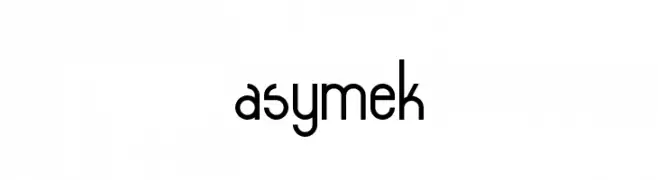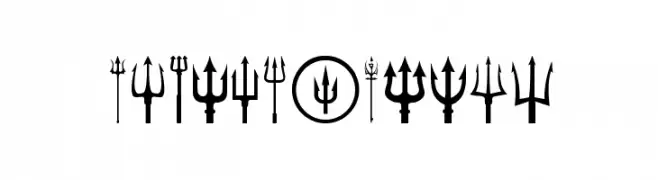
( Nick Polifroni - www.remedy667.com/ )
A modern, geometric font with clean lines and uniform structure.
( Sebastian - greekhouseoffonts.com )
A bold, double-outline font inspired by traditional Greek lettering, ideal for decorative and impactful designs.
( Woodcutter - woodcutter Manero - www.woodcutter.es )
A display font composed entirely of diverse trident symbols.
( hechicero - www.ff-omeganebula.com )
A decorative and intricate font with mystical, calligraphic elements.
( weknow - Wino S Kadir - www.creativefabrica.com/designer/weknow/ )
A bold, whimsical font with flowing, curvaceous lines and playful energy.
( weknow - Wino S Kadir - www.creativefabrica.com/designer/weknow/ )
A bold, italic script font with elegant curves and a flowing style.
( weknow - Wino S Kadir - www.creativefabrica.com/designer/weknow/ )
An elegant, italicized font with a flowing, cursive-like style.
( Digital Magic - www.graphicdesignplus.com/helen/digitalmagic/ )
The image contains decorative symbols, not a valid font.
( Digital Type Foundry - www.digitaltypefoundry.com/ )
The image contains non-standard symbols or runes.
( FontasyLand - www.fontparty.com/designer.php3?dd=195 )
A decorative font with characters inside fish shapes, blending symbolism with typography.